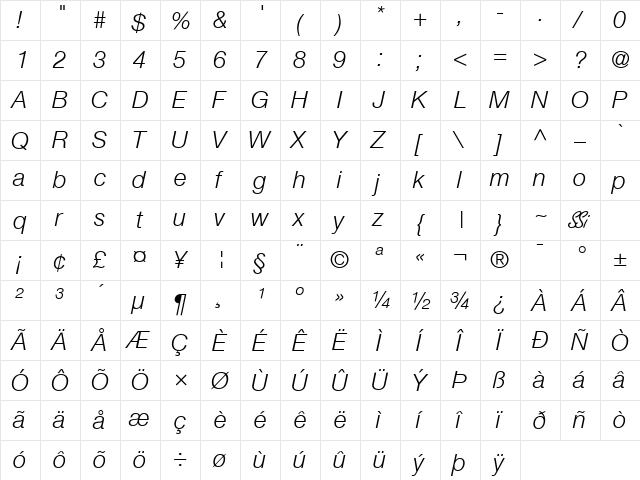
Design Context for Context Reprise Light SSi Typeface
Context Reprise Light SSi offers clean, dependable letterforms without strong stylistic allegiance, making it a practical choice for designers who need flexibility. Its italic angle brings a sense of urgency and motion to the letterforms. Its slender proportions lend an understated elegance to any composition.